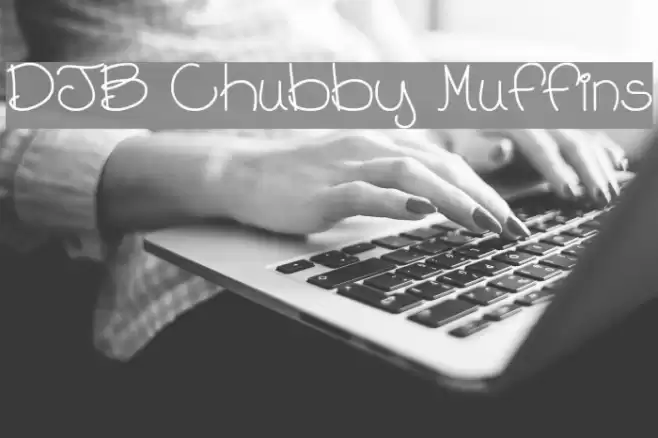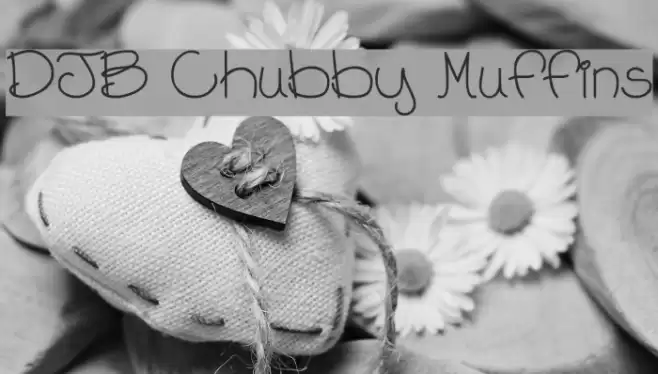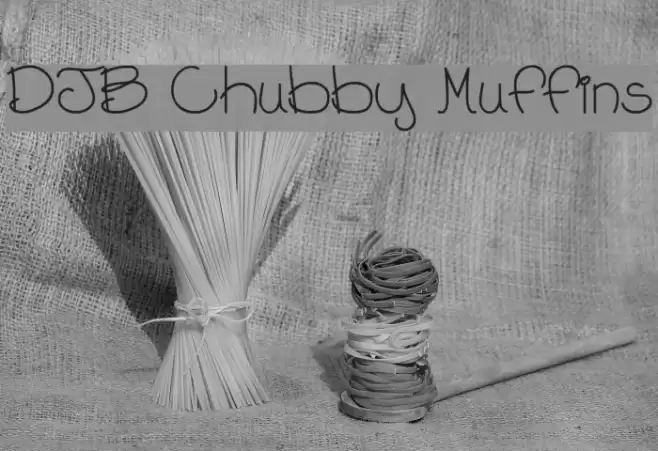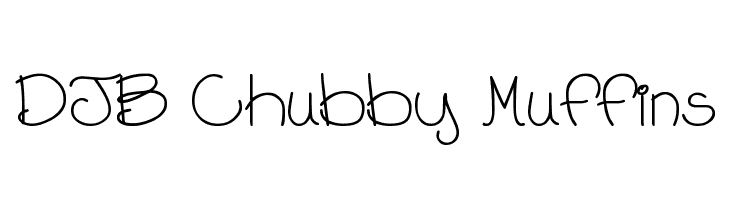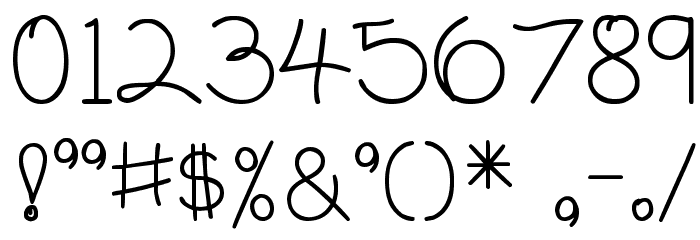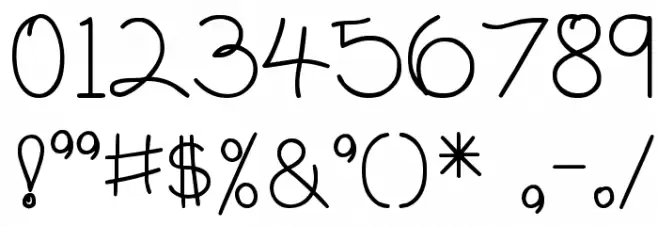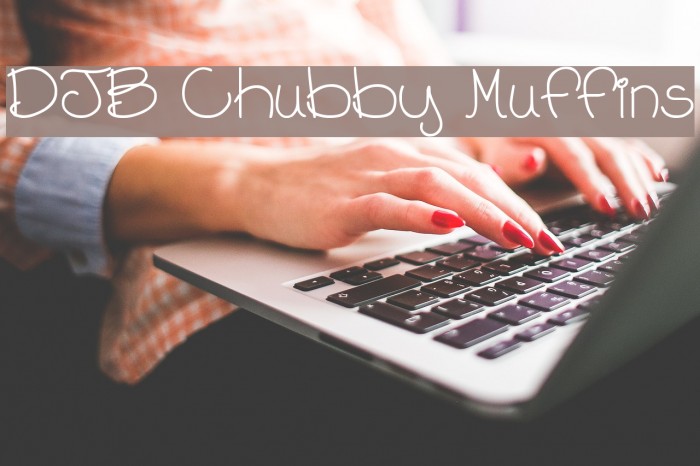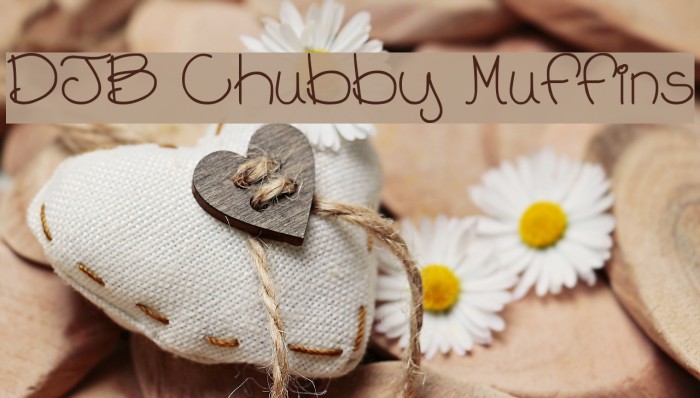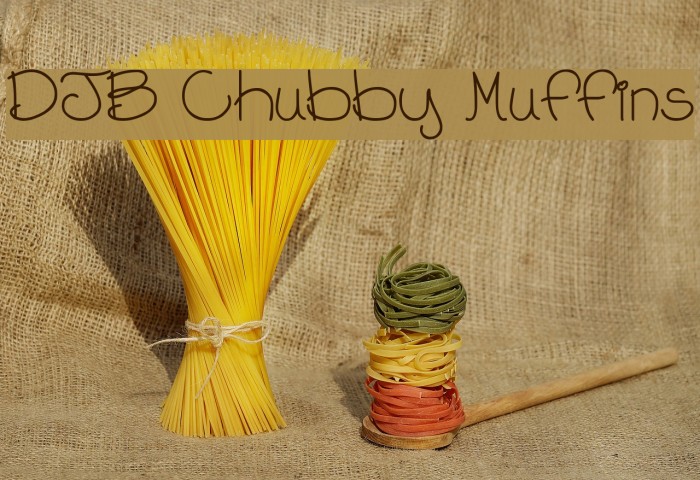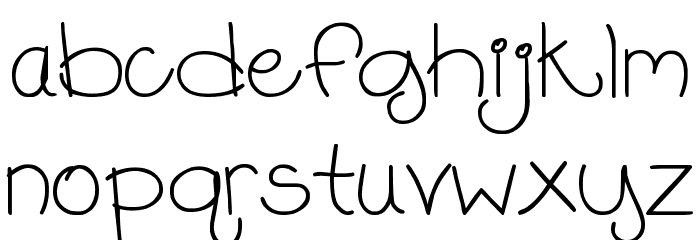
DJB Chubby Muffins Font
DJB Chubby Muffins Description
This playful and whimsical font features a handwritten style with rounded, bubbly characters. The letters have a casual, friendly appearance, with a slight tilt and irregular baseline that adds to its charm. The strokes are consistent in thickness, giving it a uniform look, while the rounded edges soften the overall feel. The font includes both uppercase and lowercase letters, numbers, and a variety of special characters, making it versatile for different uses. Its informal style is perfect for projects that require a touch of fun and creativity.
A playful, handwritten font with rounded, bubbly characters and a casual style from Uncategorized fonts.
- Proposed Projects: Ideal for children's books, greeting cards, playful branding, and casual invitations.
- Overall Style: Playful
- Use Case: Headlines, Logos, Informal Text